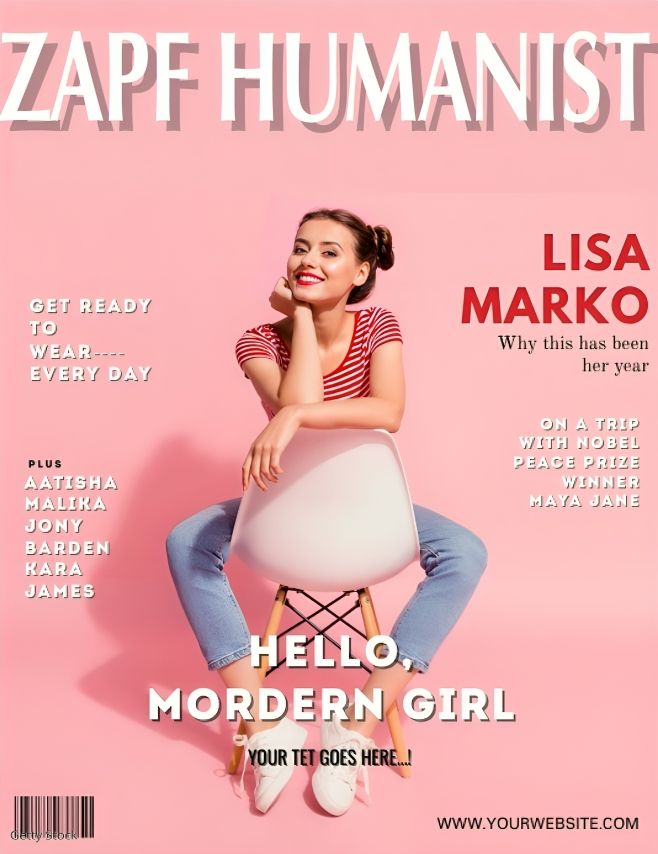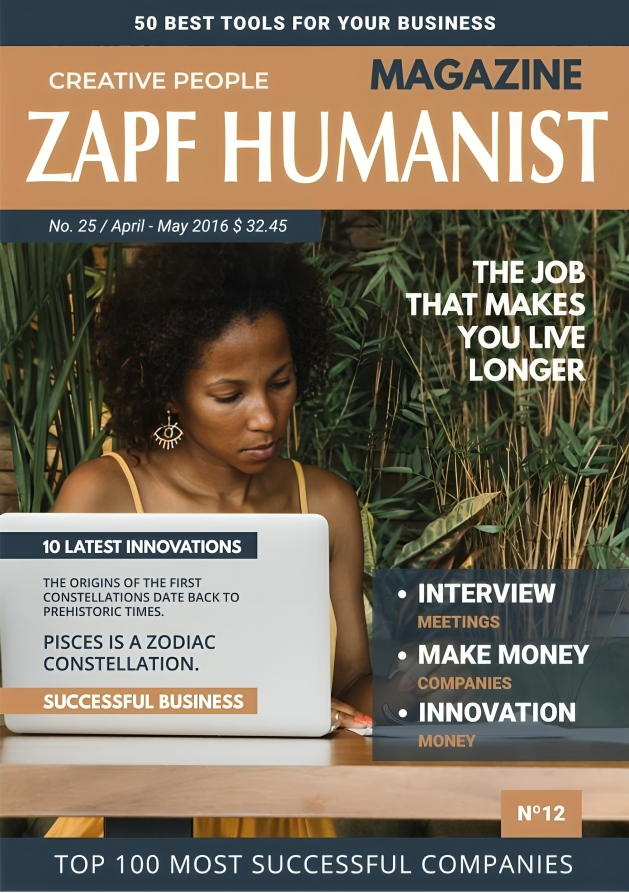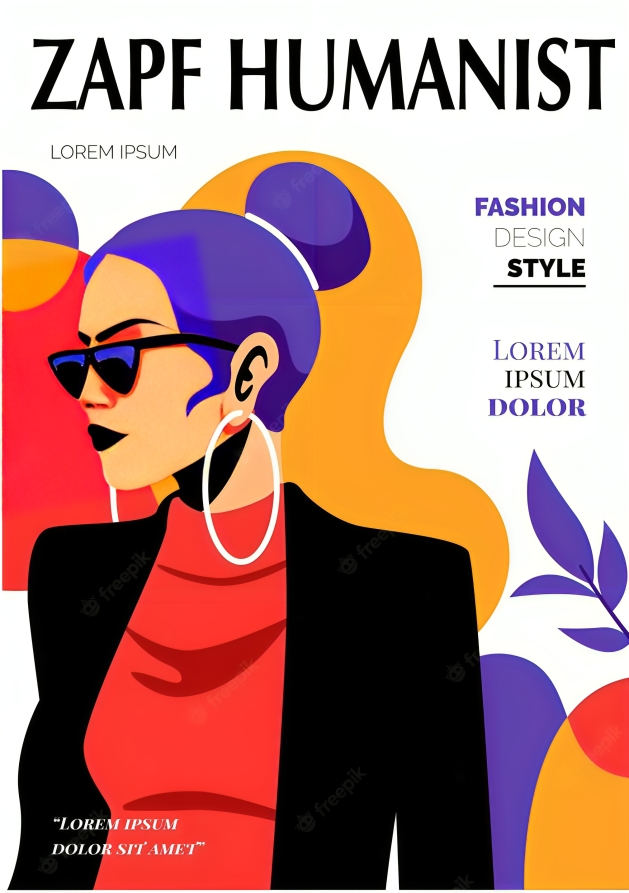
Zapf Humanist 601 BT Bold serves as an ideal font choice for your vibrant design projects. It belongs to the Bold font subfamily, providing a bold and impactful visual appeal.